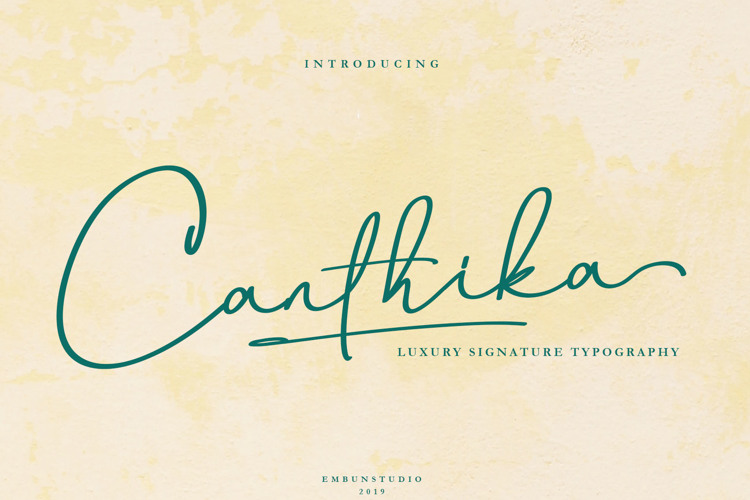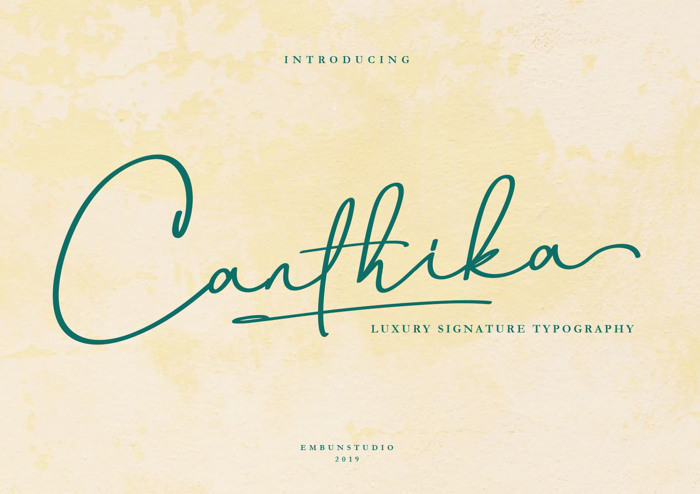
Canthika Font
Canthika is a Stylish Signature Font, offers you luxury and clean for your business / project, suitable for logo design, wedding invitation and many more. with Beauty ligature and multilingual support, give you best experience when using this script font.